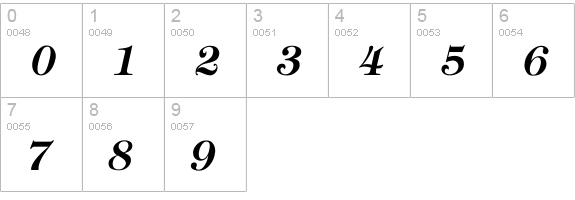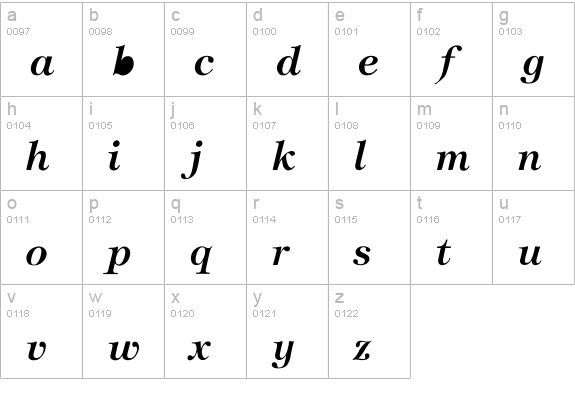
Timpani-BoldItalic Font Details
Timpani-BoldItalic font is a stunning and eye-catching typeface that is sure to make a bold statement. Its bold and italic design adds a touch of elegance and sophistication to any project, making it perfect for headlines, titles, and branding materials. The strong, curved strokes of this font give it a sense of movement and dynamism, making it visually appealing and engaging. With its unique blend of boldness and italics, Timpani-BoldItalic font is versatile and can be used in a variety of design projects. Whether you're creating a poster, a logo, or a website, this font will help your text stand out and make a lasting impression. One of the best things about Timpani-BoldItalic font is that it is free. Yes, you read that right! This beautiful typeface is freely available to download at FontsMarket.com. So not only can you enhance your designs with this incredible font, but you can also do so without breaking the bank. So why wait? Download Timpani-BoldItalic font today and elevate your design projects to new heights. With its captivating style and the fact that it's free, this font is a must-have for any designer or creative individual looking to add a touch of boldness and elegance to their work. Don't miss out on this opportunity to enhance your designs with this extraordinary font.